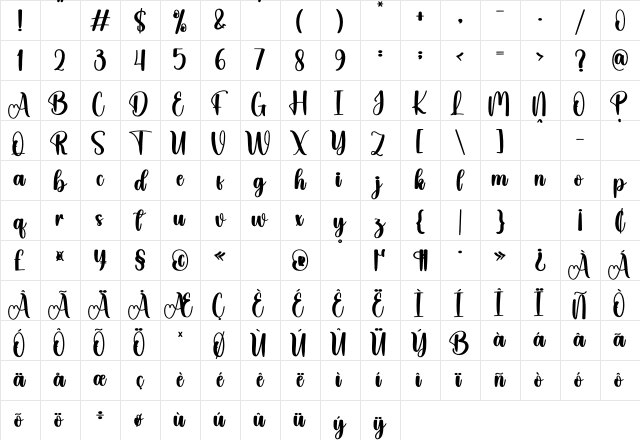
Babycare Regular Free Font
Babycare Regular
Design Context for Babycare
Babycare is a composed and adaptable typeface that performs quietly and consistently across a wide range of design contexts.